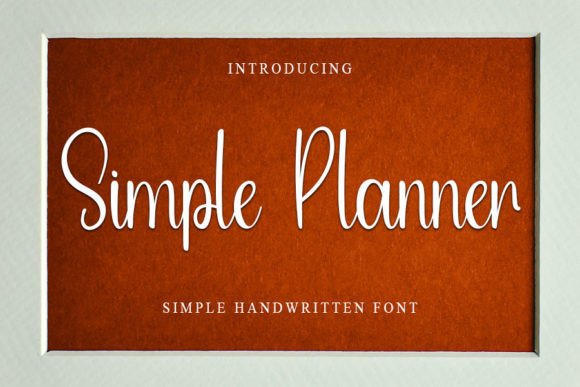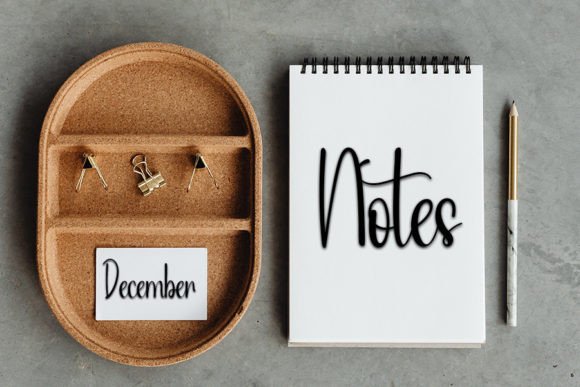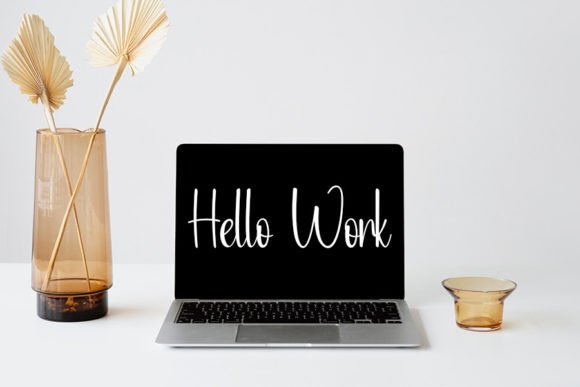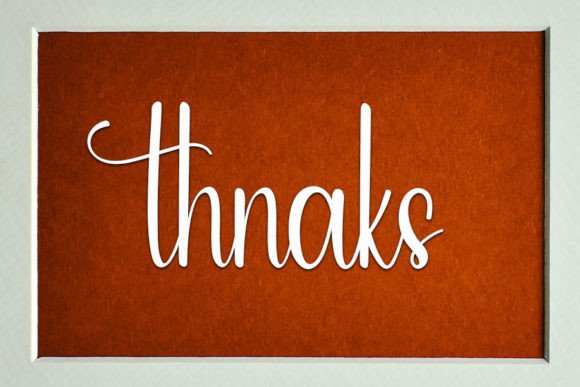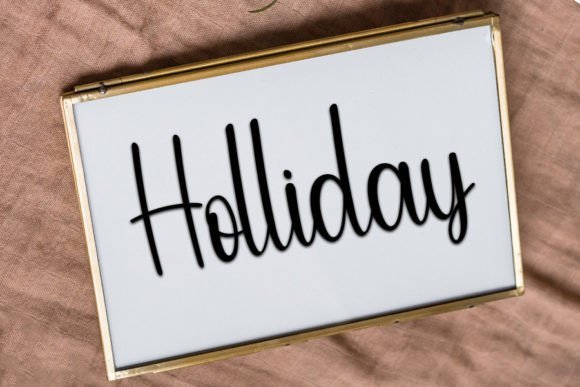
Simple Planner Font
A Neat and Elegant Handwritten Font
The Simple Planner Font is a neat and beautiful handwritten typeface with an elegant touch. Its graceful and clean design makes it perfect for a wide range of creative projects. Whether you’re working on wedding invitations, social media logos, advertisements, or product packaging, the Simple Planner Font adds a personalized, charming touch to your work, ensuring your designs stand out with style and sophistication.
Perfect for Wedding Invitations and Special Occasions
The Simple Planner Font is ideal for wedding invitations and special occasion designs. Whether you’re creating save-the-dates, invitations, or thank you cards, this font provides a timeless and romantic feel to your materials. Its elegant handwritten style ensures your designs are both personalized and sophisticated, perfect for weddings and memorable events.
Great for Social Media Logos and Branding
For social media logos and branding, the Simple Planner Font provides a unique and elegant design. Whether you’re creating a personal brand logo, Instagram post, or business logo, this font gives your brand an authentic, approachable style. Its handwritten touch ensures your branding is memorable and professional.
Ideal for Advertisements and Product Packaging
For advertisements and product packaging, the Simple Planner Font brings a clean and elegant look to your designs. Whether you’re working on product labels, flyers, or marketing materials, this font ensures your materials feel polished and premium. Its sleek handwritten style makes it perfect for products that need to project both style and authenticity.
Perfect for Photography and Watermarks
For photography and watermarks, the Simple Planner Font works wonderfully. Whether you’re adding a photographer’s signature or custom watermark to your images, this font brings a personalized and charming touch. It’s also great for photo albums and portfolio labels, ensuring your work is marked with a unique and professional flair.
Elegant, Legible, and Versatile
Despite its handwritten style, the Simple Planner Font is legible and versatile. Its smooth, well-spaced strokes ensure that your text is clear and easy to read, even at smaller sizes or for longer passages. Whether you’re creating headlines, captions, or body text, this font strikes the perfect balance between beauty and readability, making it ideal for various creative applications.
Add Elegance and Style to Your Designs with Simple Planner Font
If you’re looking for a neat, elegant, and handwritten font to elevate your designs, the Simple Planner Font is the perfect choice. Whether you’re working on wedding invitations, logos, advertisements, or product packaging, this font adds a personalized, timeless touch to your work. Let the Simple Planner Font bring grace and style to your creative projects and help them stand out with elegance.